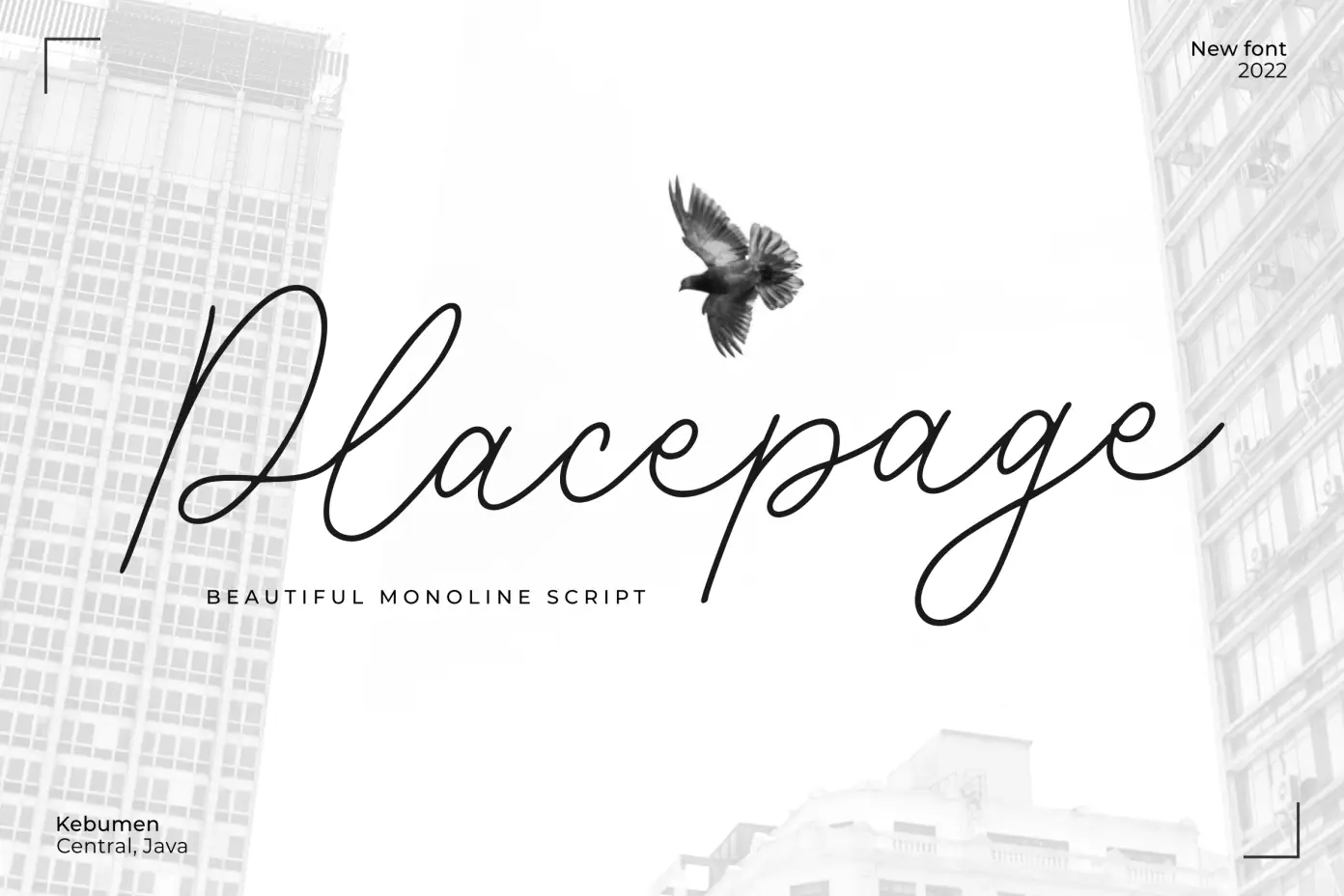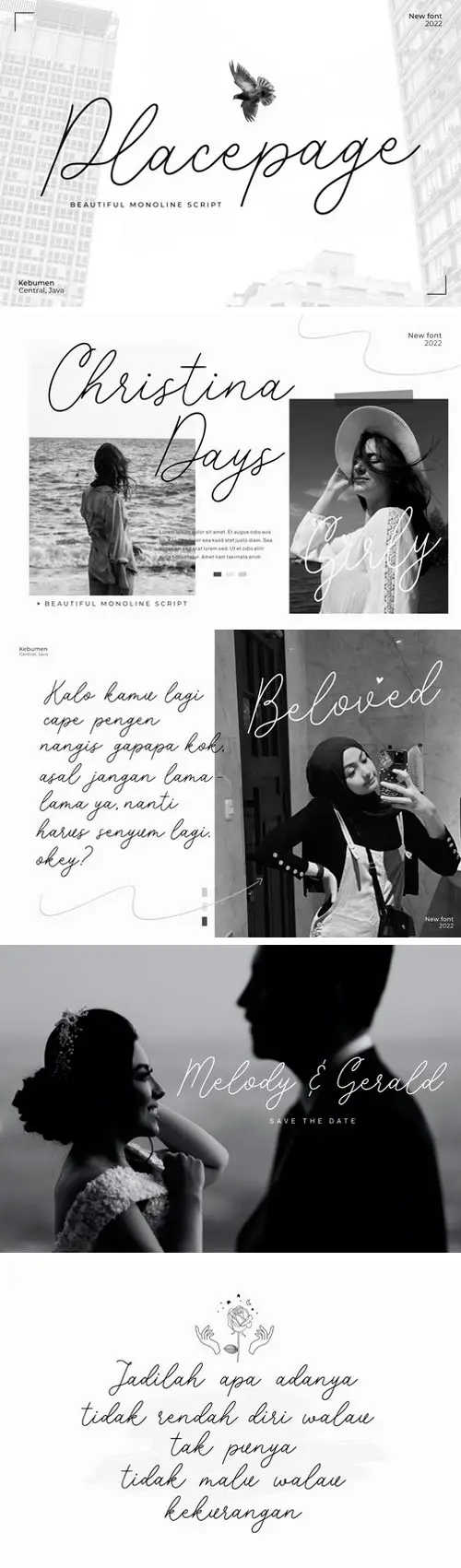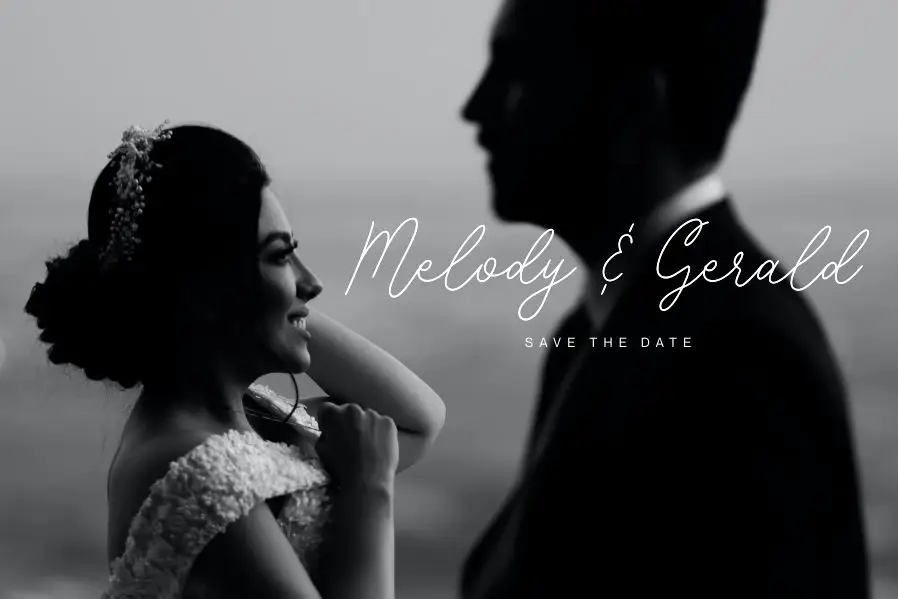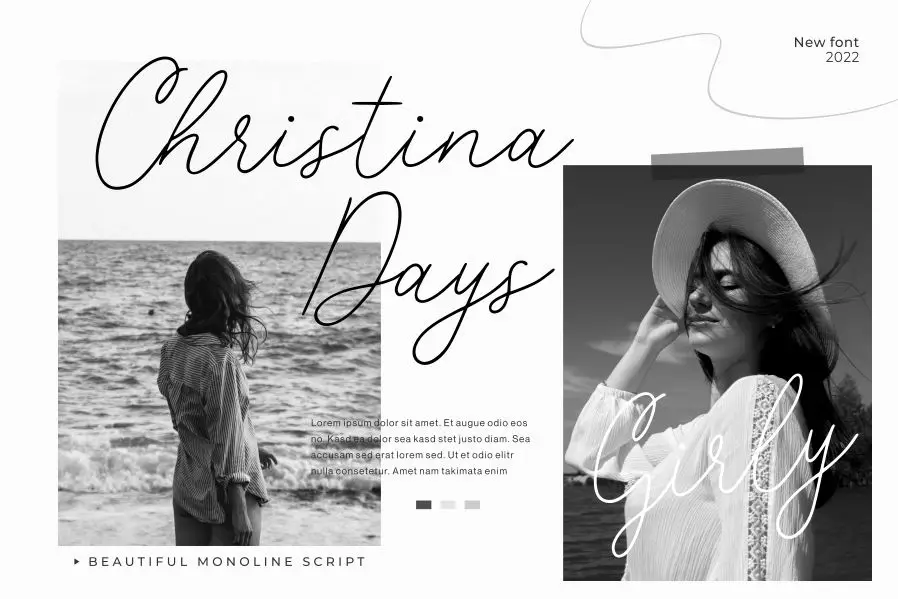
Placepage Handwritten Font
Introducing the Placepage Handwritten Font, a beautifully crafted typeface that captures the essence of natural handwriting. This font features a unique blend of elegance and casual charm, making it perfect for a variety of design projects.
• Handwritten style with a personal touch
• Multiple weights for versatile use
This font is ideal for branding, logos, invitations, and web design, providing a personal touch to your projects.